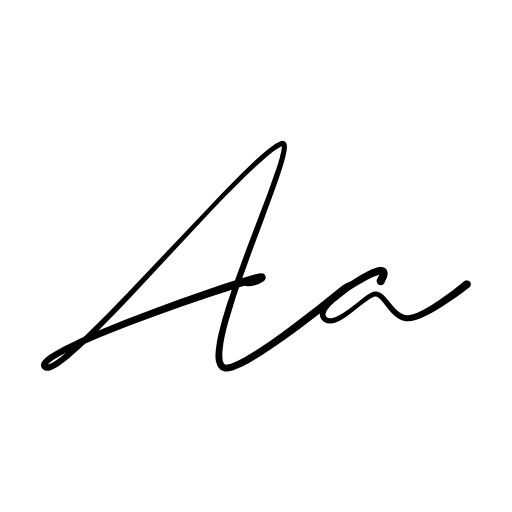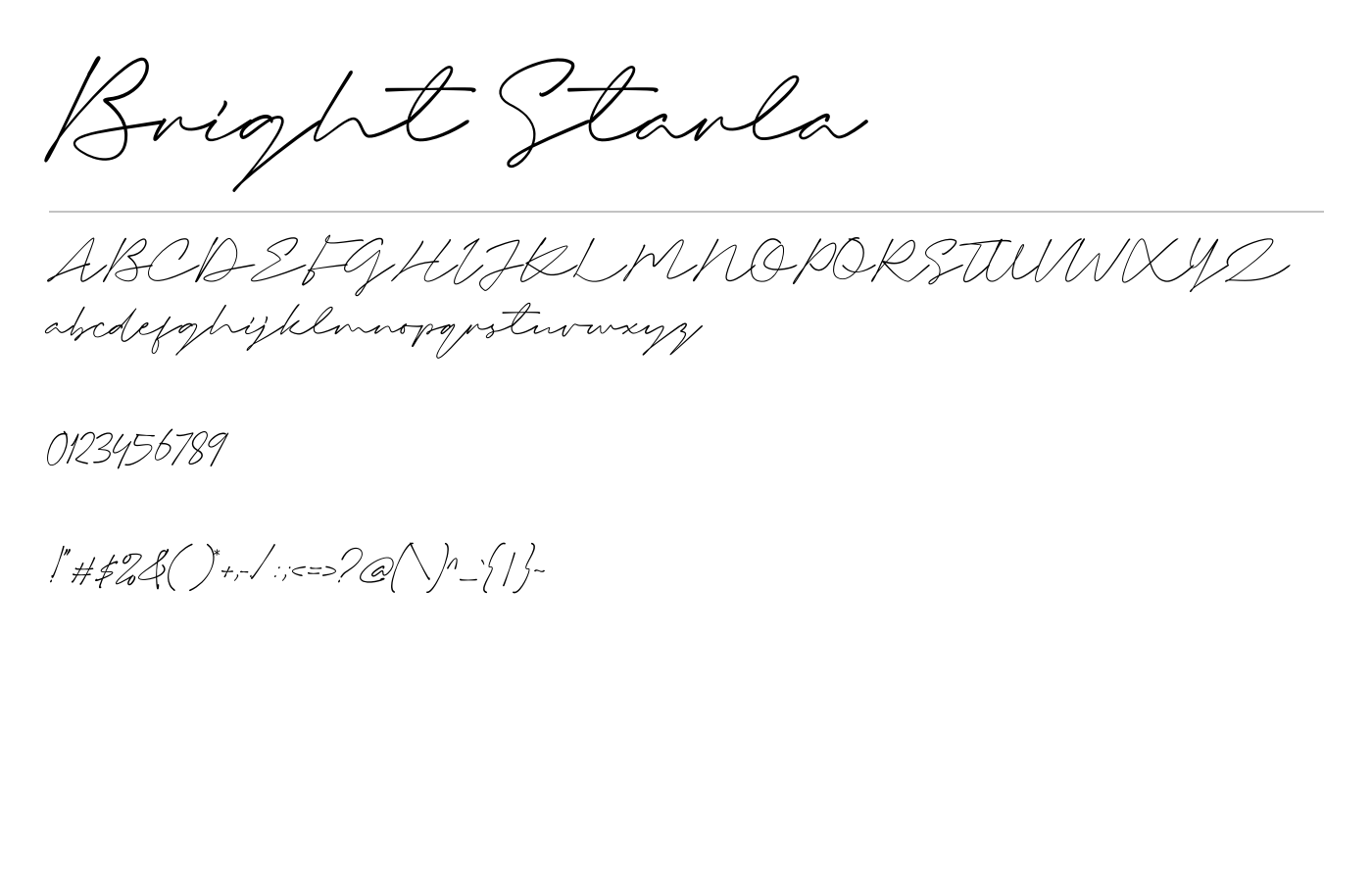
Bright Starla is an elegant, thin script font that mimics natural handwriting with its delicate, flowing strokes and airy spacing. Its lightweight, slightly slanted letterforms create a refined and personal feel, making it perfect for invitations, branding, and projects that seek a sophisticated yet approachable touch. This font works especially well in designs needing a graceful and intimate aesthetic, where subtlety and charm are key.
Bright Starla Font
About Bright Starla Font
| Font family | Bright Starla Font |
| Designer | Eep Apringga |